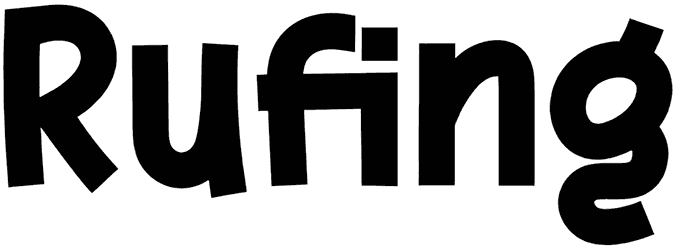
Rufing Font
Choosing a bold and playful outward look would make an appealing style for your intended design. Rufing is a cartoon font with modest letters that can be matched with a lot of subjects and ideas. There is no backup of numbers and punctuation marks, but this hand-lettering font can cause a kind mood for your creative layouts, from game screens to logos.